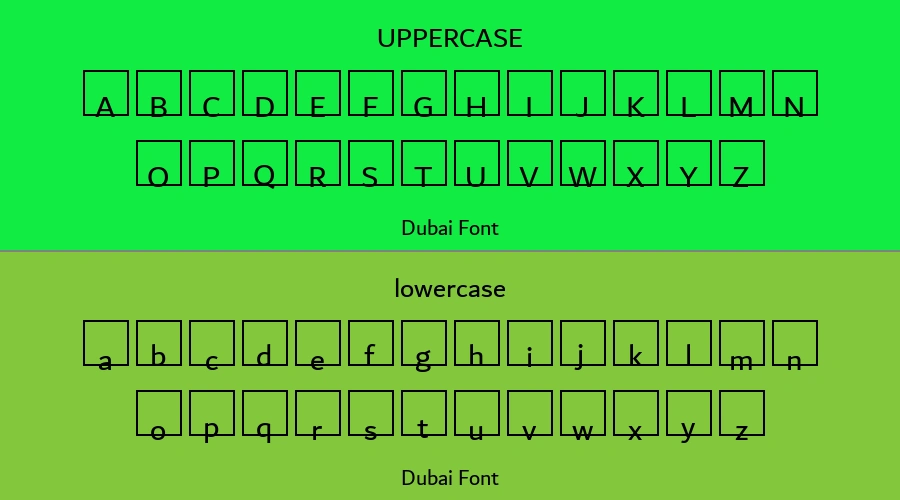
About Dubai Font
Dubai Font represents a sophisticated approach to type design, balancing commanding presence with emotional connection. Perfect for exhibition design, this font family showcases impressive adaptability and professional finish throughout its character set. Designers appreciate its versatility and reliability.
Designers will appreciate nuanced touches including structural clarity and isolated forms, adding sophistication to any project. These features become apparent in literary pages, where versatility matters most. The careful treatment of ear formation and regulatory compliance ensures optimal performance.